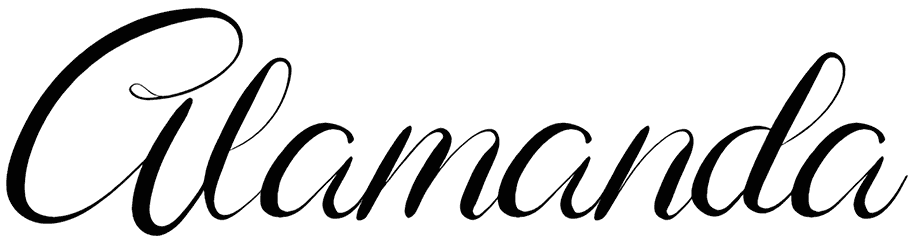
Alamanda Font
A peachy, minimal handwritten face can make your design look chic and confident. As a calligraphic font with an innate and elegant mood, Alamanda can be utilized for a wide range of projects with any relaxing theme.
What are you waiting for? Put to the test this versatile font that comes across with a mixture of lowercase and uppercase letters and enriches any designs like logotypes, magazines, invitation cards, fashion-related designs, or whatnot.